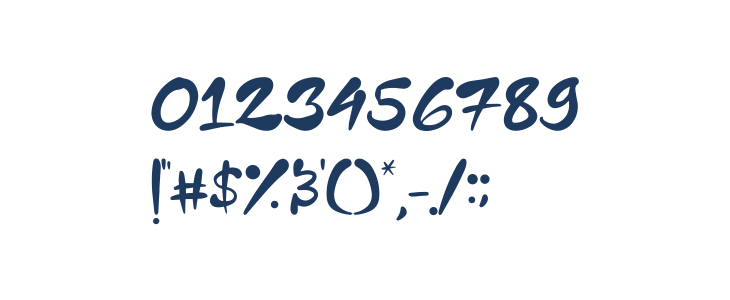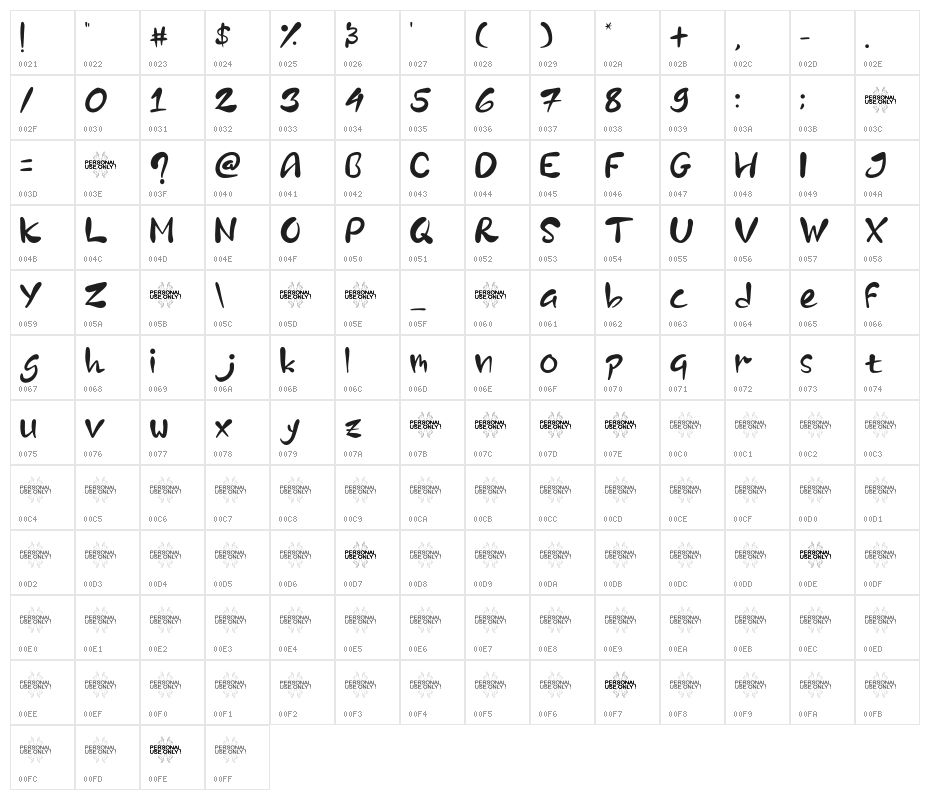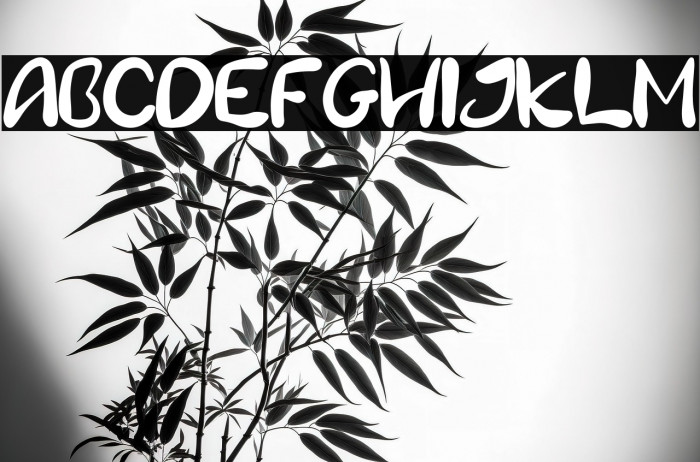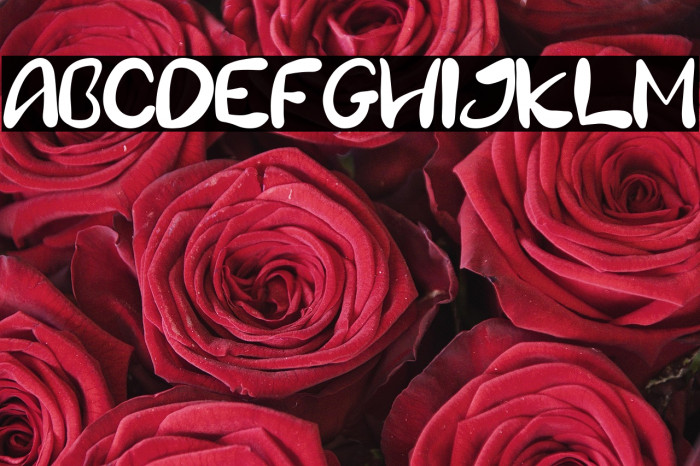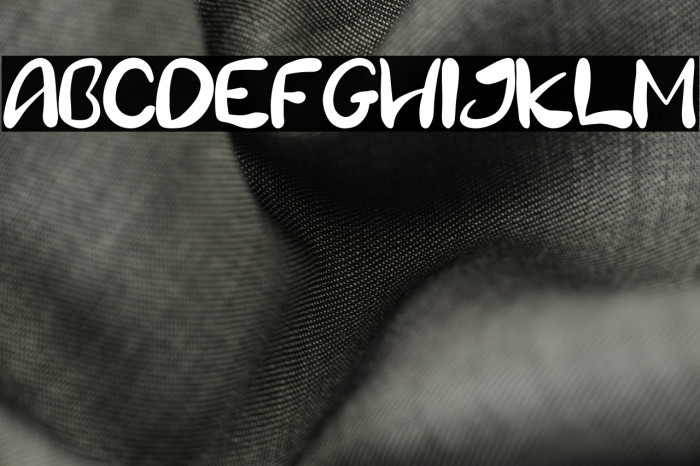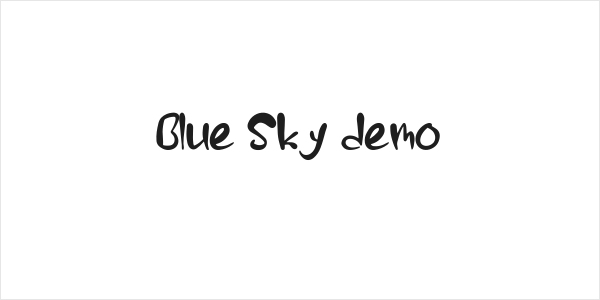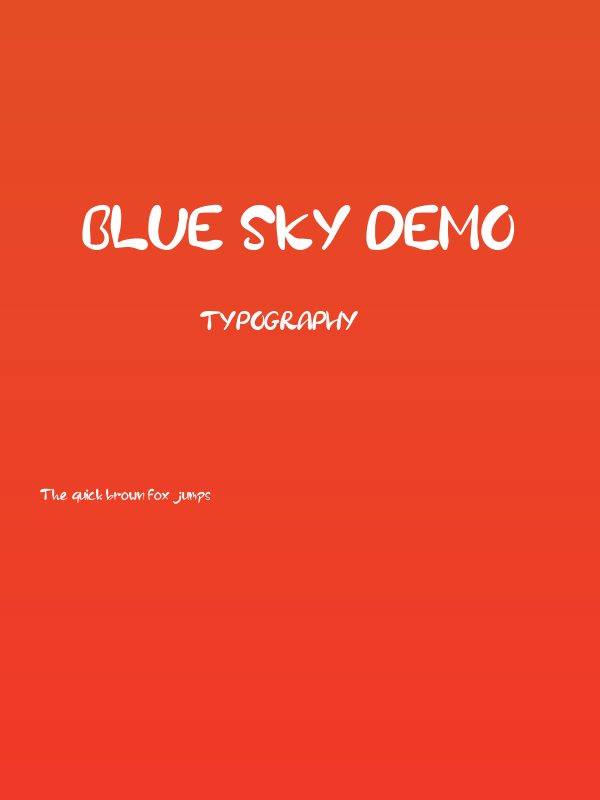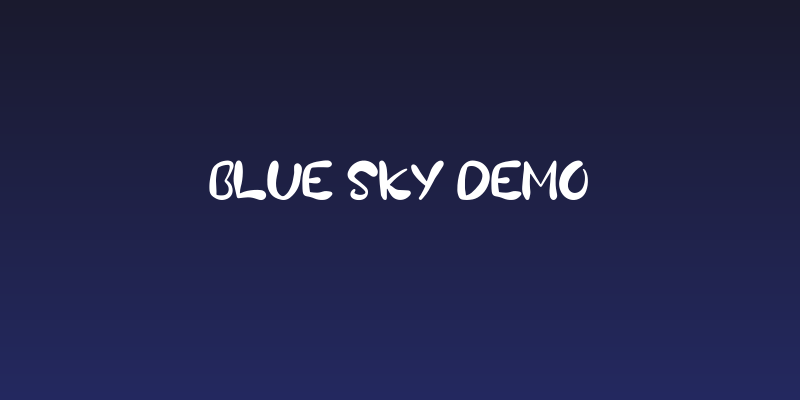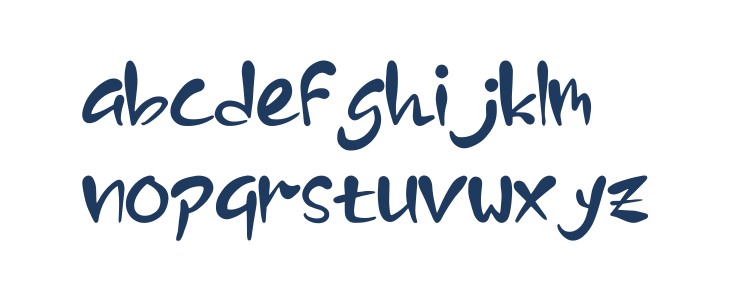
Blue Sky demo Font
Blue Sky demo Description
This font features a playful and dynamic style, characterized by its bold and fluid strokes. The letters are slightly slanted, giving a sense of motion and energy. The uppercase and lowercase letters maintain a consistent flow, with rounded edges and a hand-drawn appearance. The numbers and special characters follow the same lively design, making the font suitable for creative and informal projects. Its unique style adds a personal touch, making it ideal for designs that require a friendly and approachable feel.
Overall StylePlayful
Proposed ProjectsIdeal for children's books, greeting cards, playful branding, and creative posters.